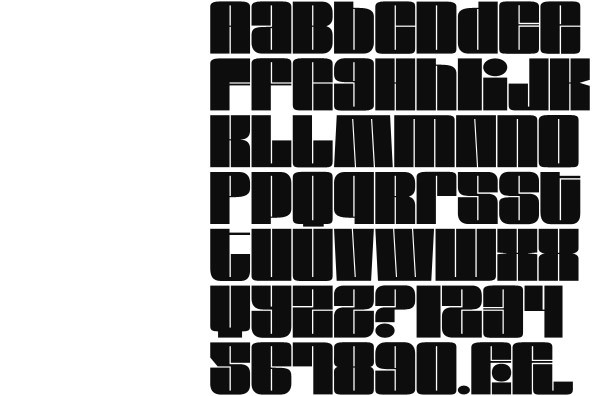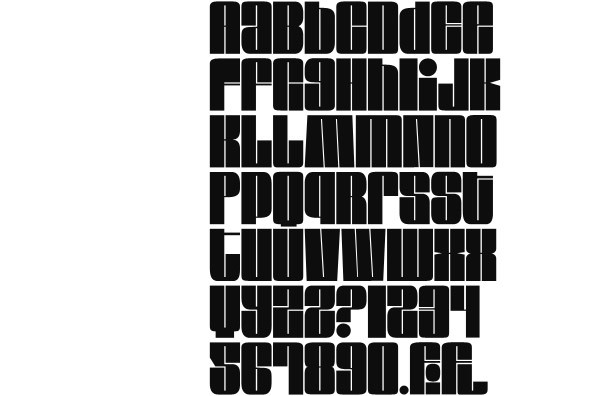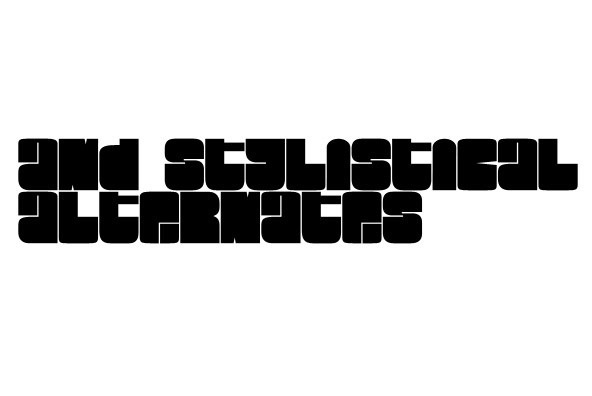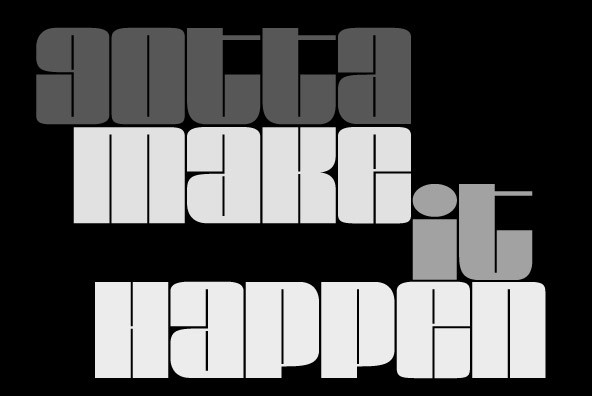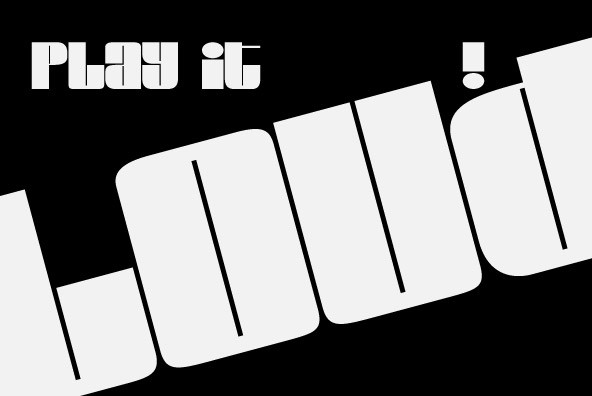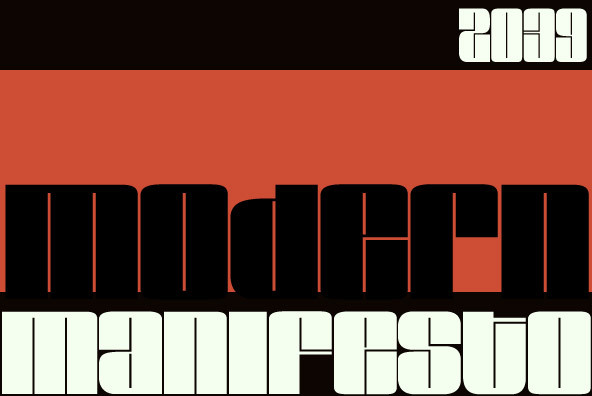
Loudine
Loudine is a striking decorative display typeface, great for posters, book covers and magazine headlines. It comes in two widths, each of them packed with a set of stylistic alternates: just turn on the feature in an OpenType savvy program to instantly get into a new mood, with filled counters and slightly different lettershapes. Be sure to play it loud!